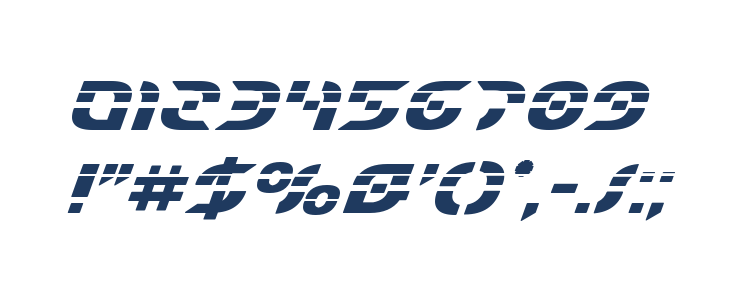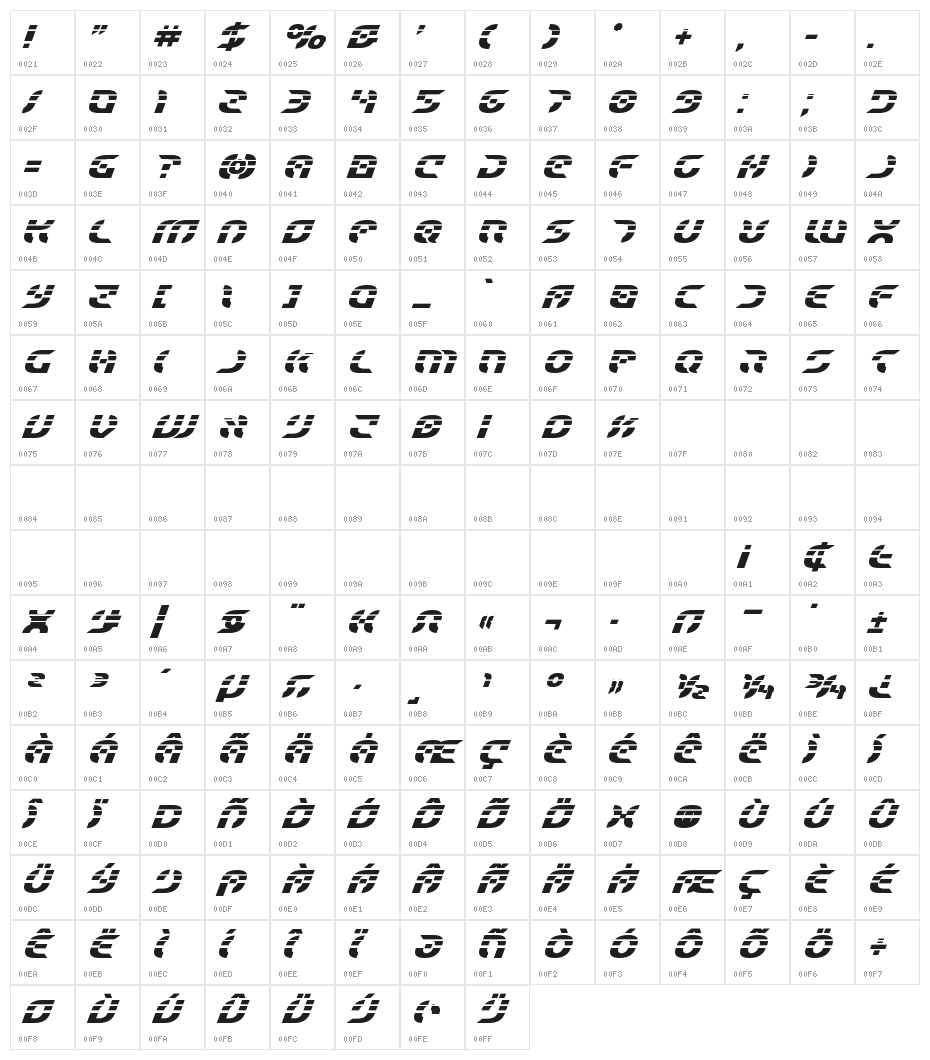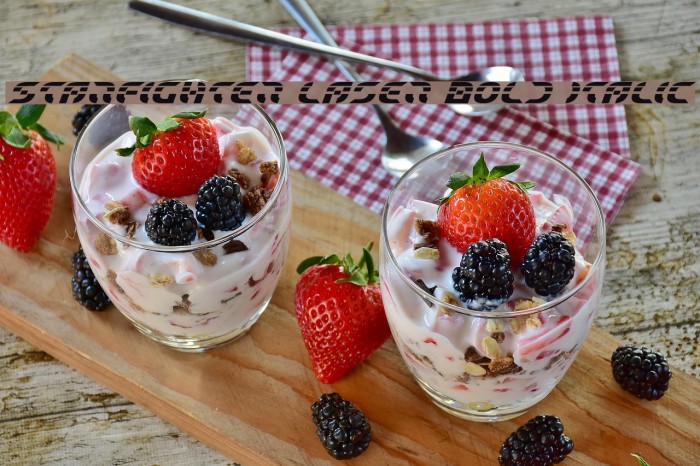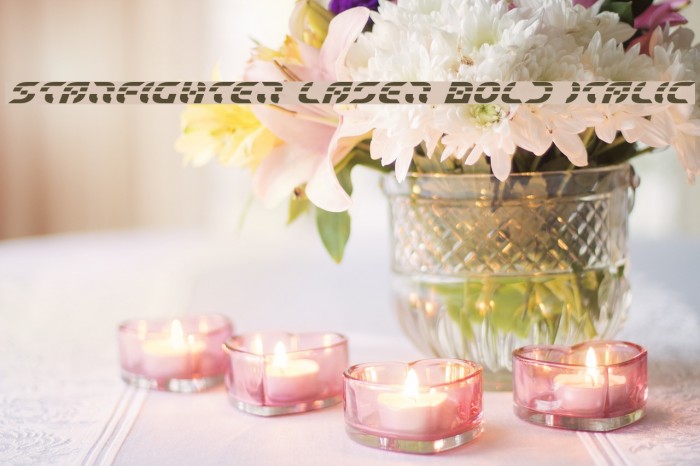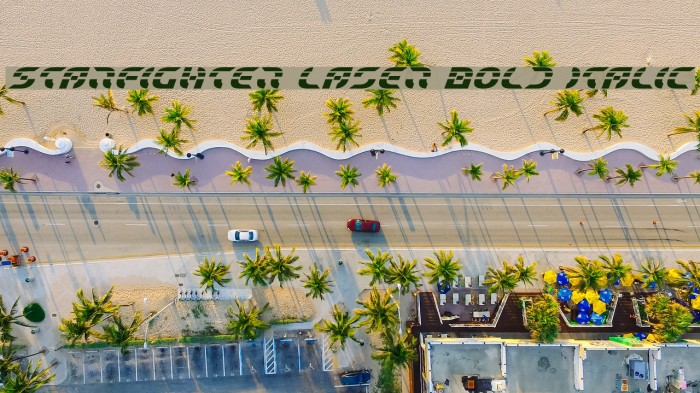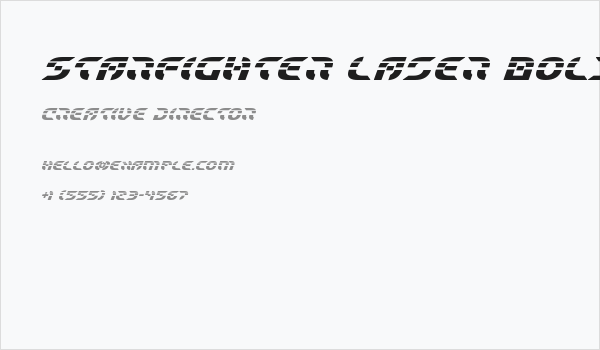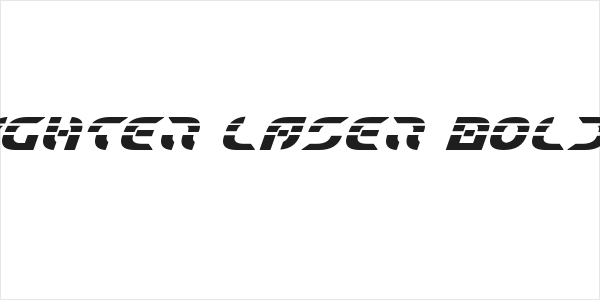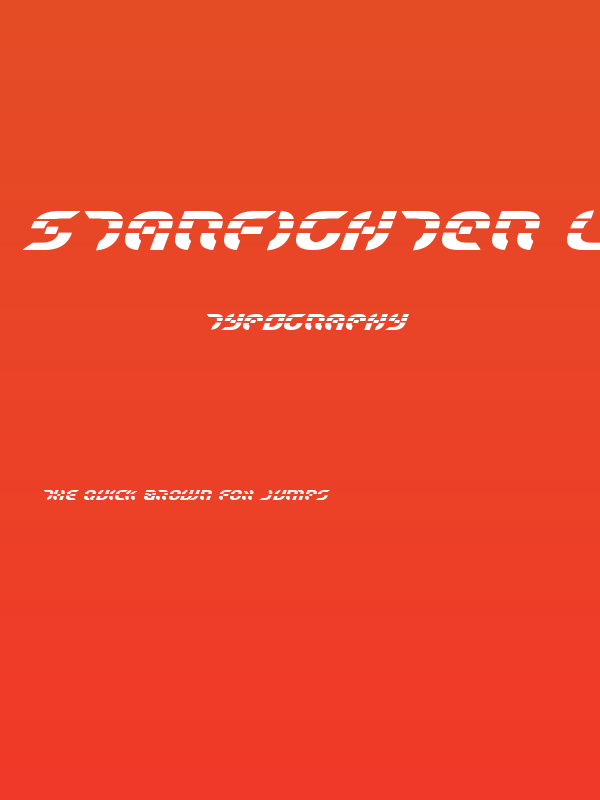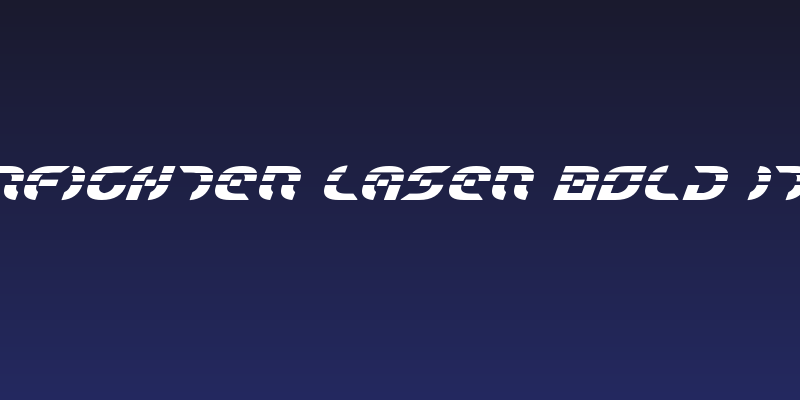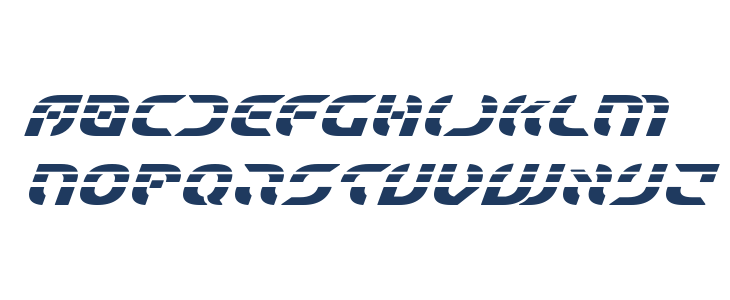
Starfighter Laser Bold Italic Font
Starfighter Laser Bold Italic Description
This font features a futuristic and dynamic design, characterized by its bold and italicized style. The letters are constructed with a stencil-like appearance, incorporating sharp angles and geometric cuts that give it a high-tech, sci-fi aesthetic. The bold weight enhances its presence, making it ideal for impactful designs. The italic slant adds a sense of motion and speed, suitable for projects that require a modern and energetic vibe. The characters are evenly spaced, ensuring readability while maintaining a unique visual appeal. This font is perfect for creative projects that aim to capture a sense of innovation and forward-thinking.
| Proposed Projects | Ideal for sci-fi movie posters, video game titles, tech branding, and futuristic event flyers. |